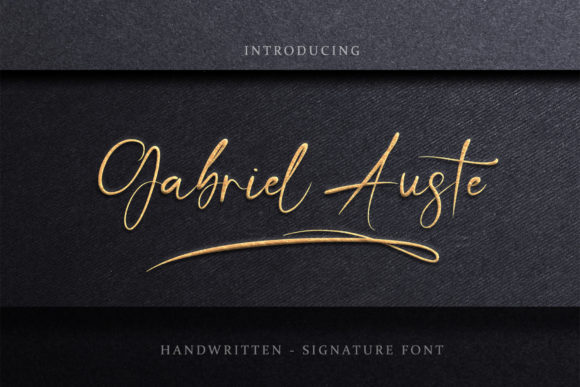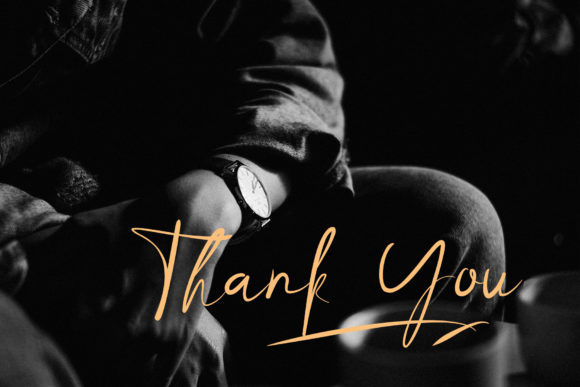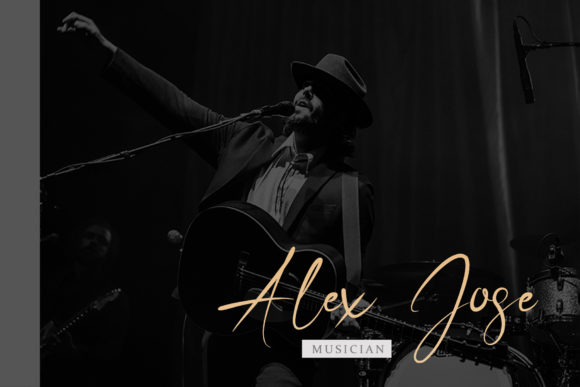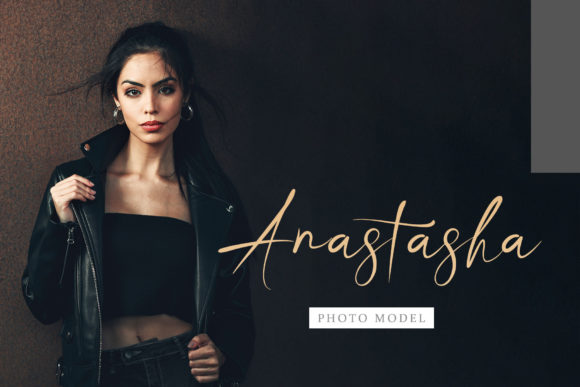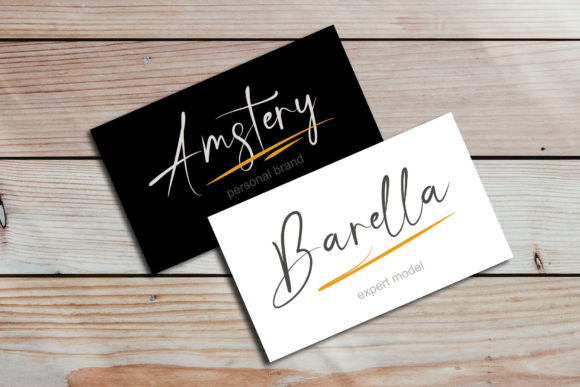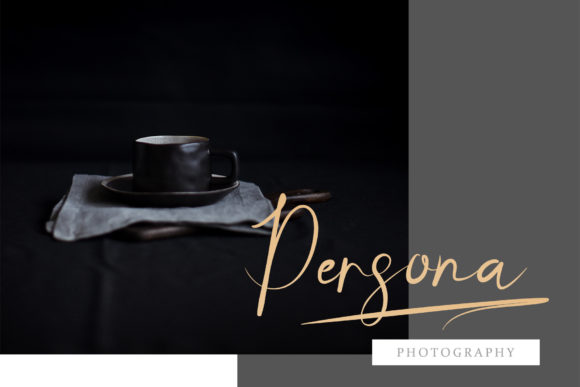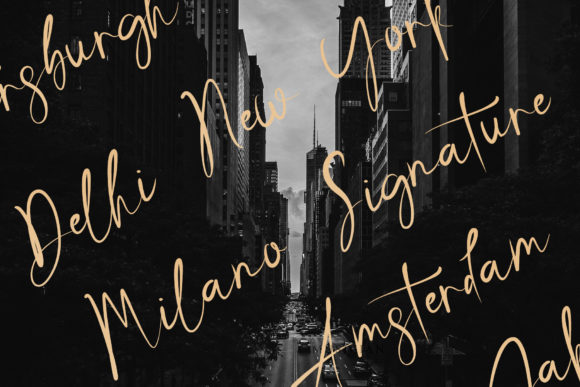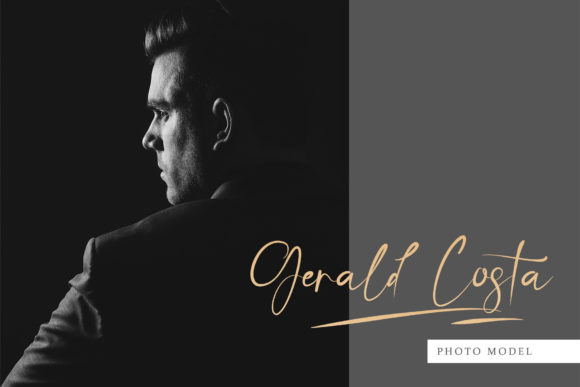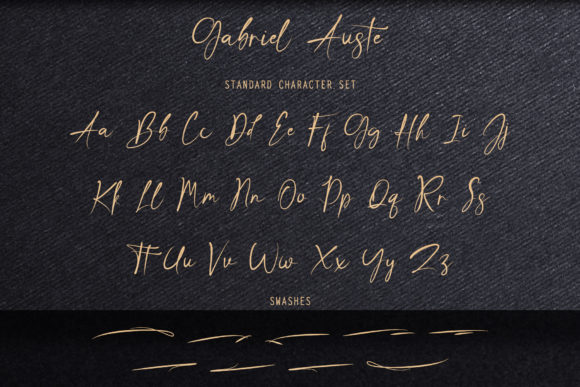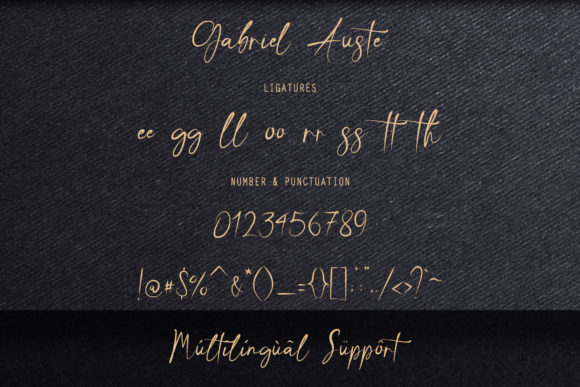
Gabriel Auste Font
About Gabriel Auste Font
Gabriel Auste is a beautiful and refined script font. It has a classy, elegant and modern look that can be used for logos, branding, invitations, stationery, wedding designs, social media posts, and much more!